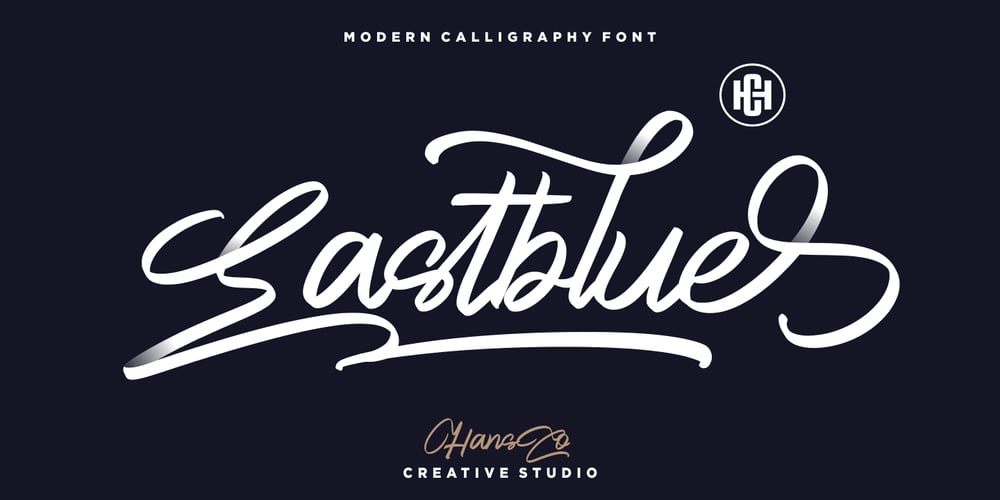
Eastblue
Eastblue font
Eastblue Font Family was designed by Burhan Afif and published by HansCo. Eastblue contains 1 styles and family package options. Eastblue is a modern calligraphic font, with each letter having been carefully designed to make your text look beautiful. With its modern script style, this font will be suitable for various projects, for example: quotes, blog titles, branding, logos, fashion, invitations, greeting cards, posters, business cards, clothing, letters, stationery, and more.This one should make your designs instantly professional and amazingly! Be a perfect professional in a minute and start creating with this font today!Tutorial how to Install & use Alternate / Special Character : https://hanscostudio.com/tutorial/Enjoy!Enjoy